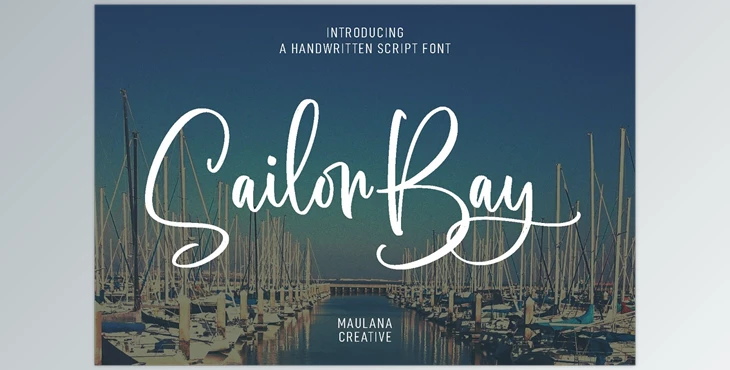
Sailor Bay – Brush Script Font:
Sailor Bay is a fancy brush script font. It features a standard brush contrast stroke and a fun character that has some ligatures and alternates. To provide you with additional imaginative work. Sailor Bay font supports multilingual more than 100languages. It is suitable for logo design, social media as well as Movie Titles Books Titles or brief text even a lengthy text and is a great secondary text font with a serif or sans. Create stunning designs using the Sailor Bay font.